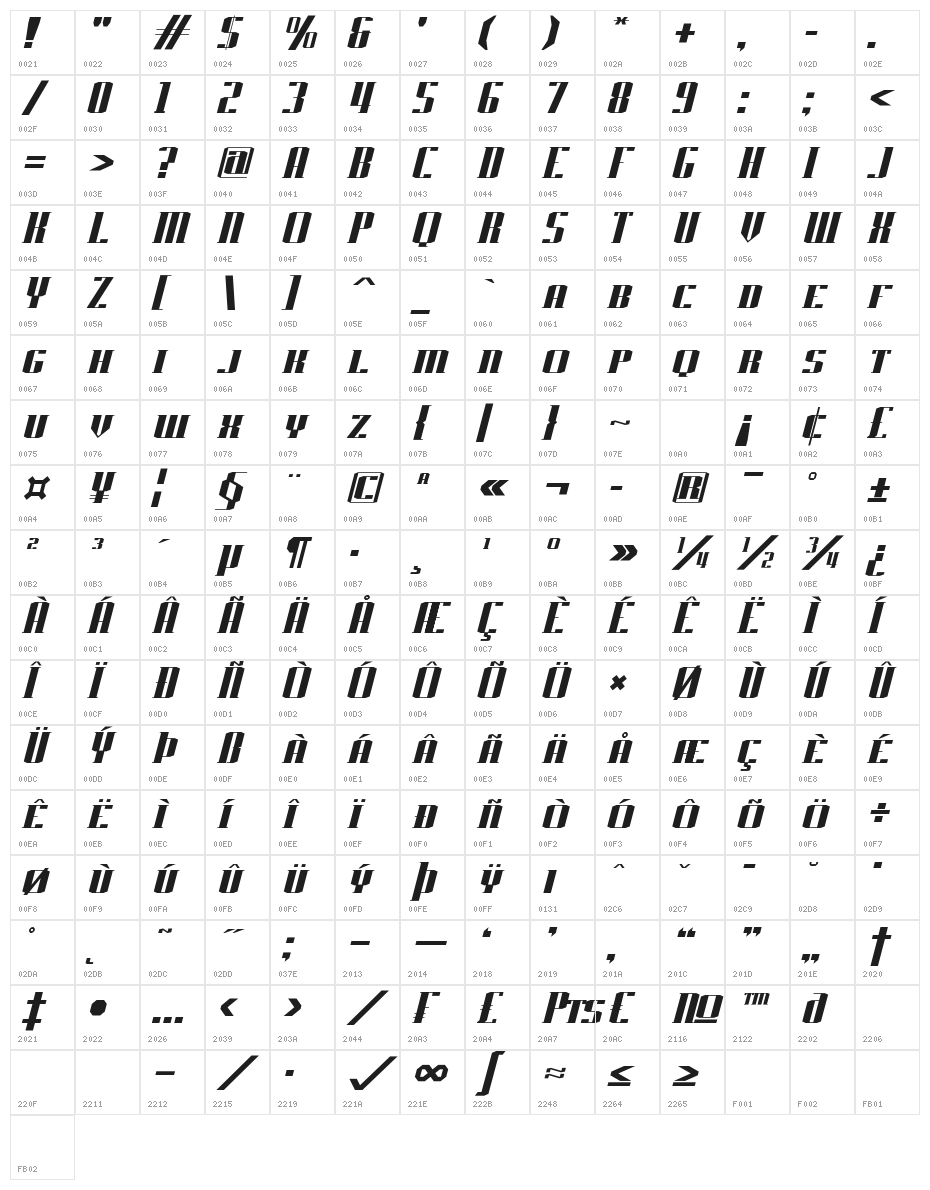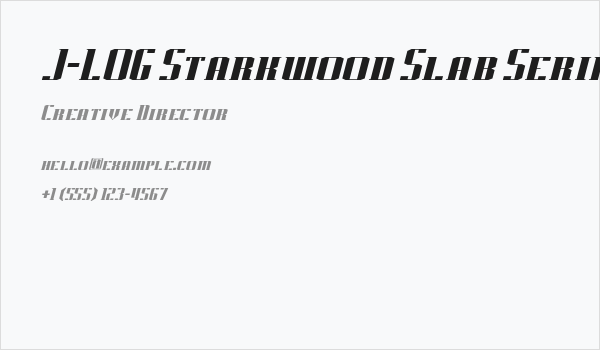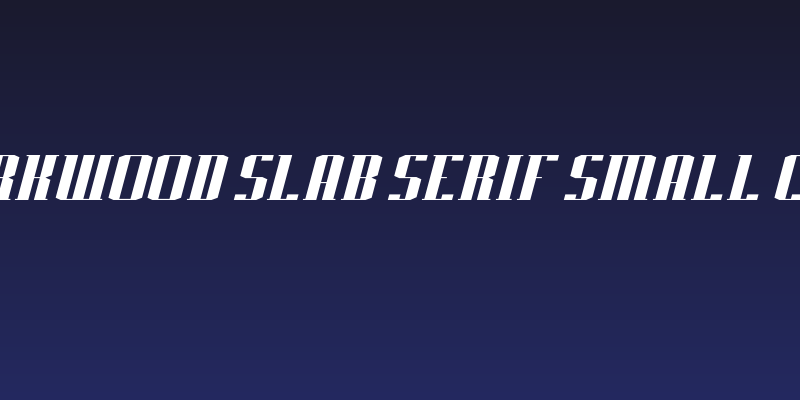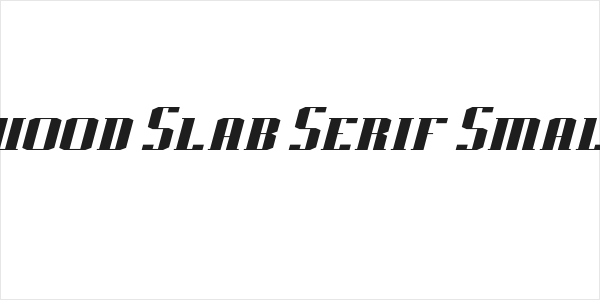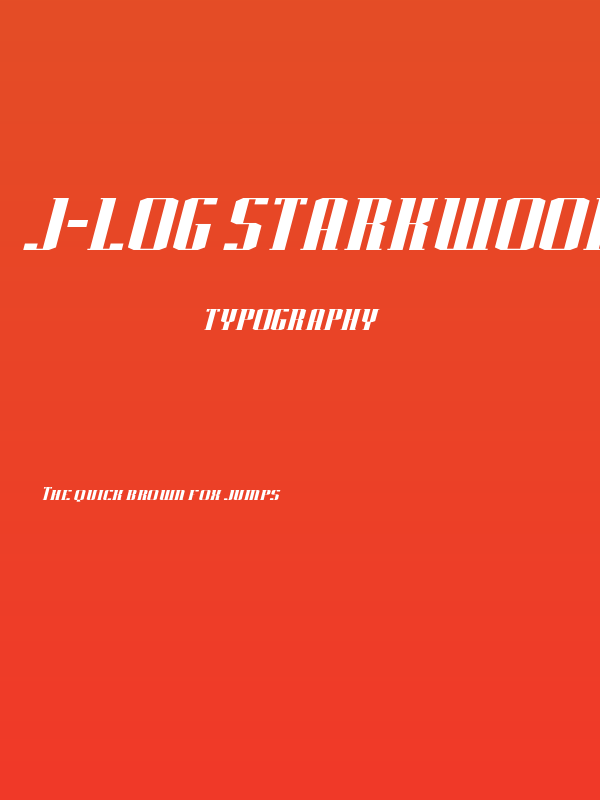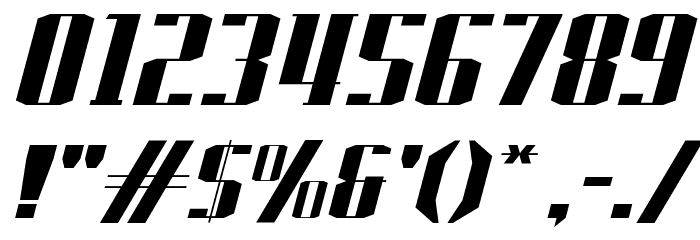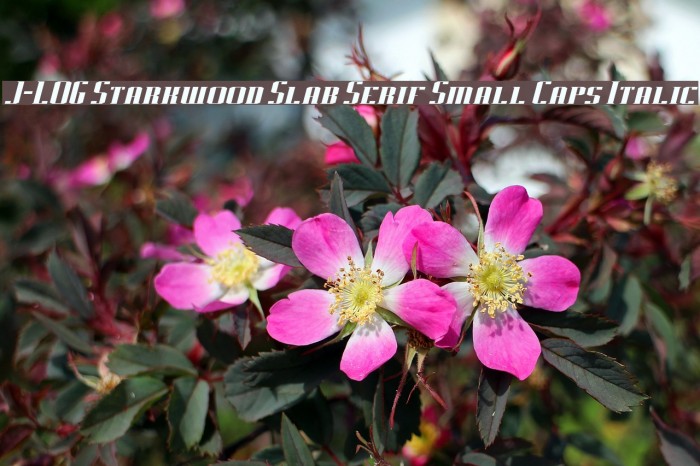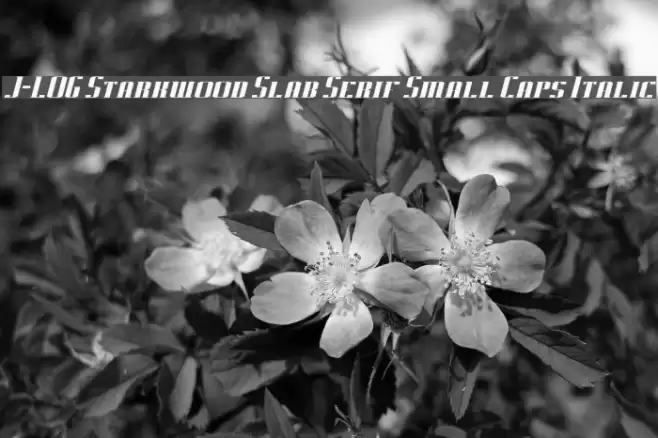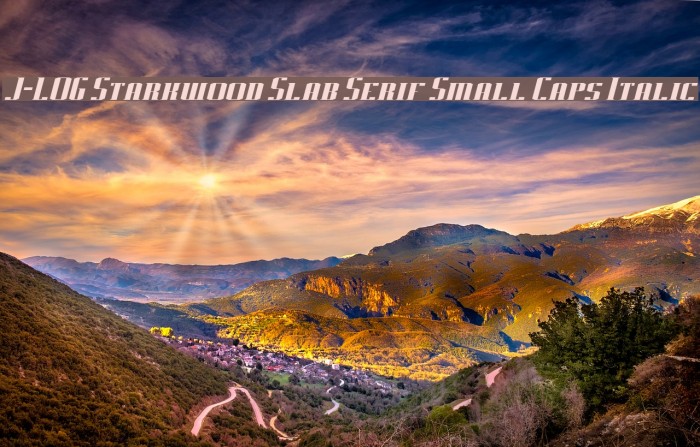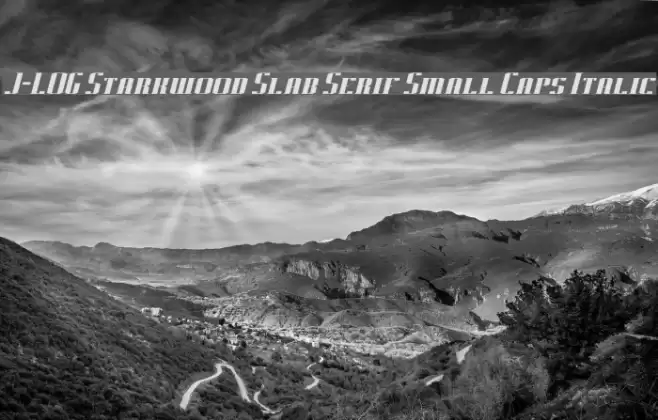
J-LOG Starkwood Slab Serif Small Caps Italic Font
J-LOG Starkwood Slab Serif Small Caps Italic Description
| Proposed Projects | Ideal for branding, headlines, posters, and any design needing a bold statement. |